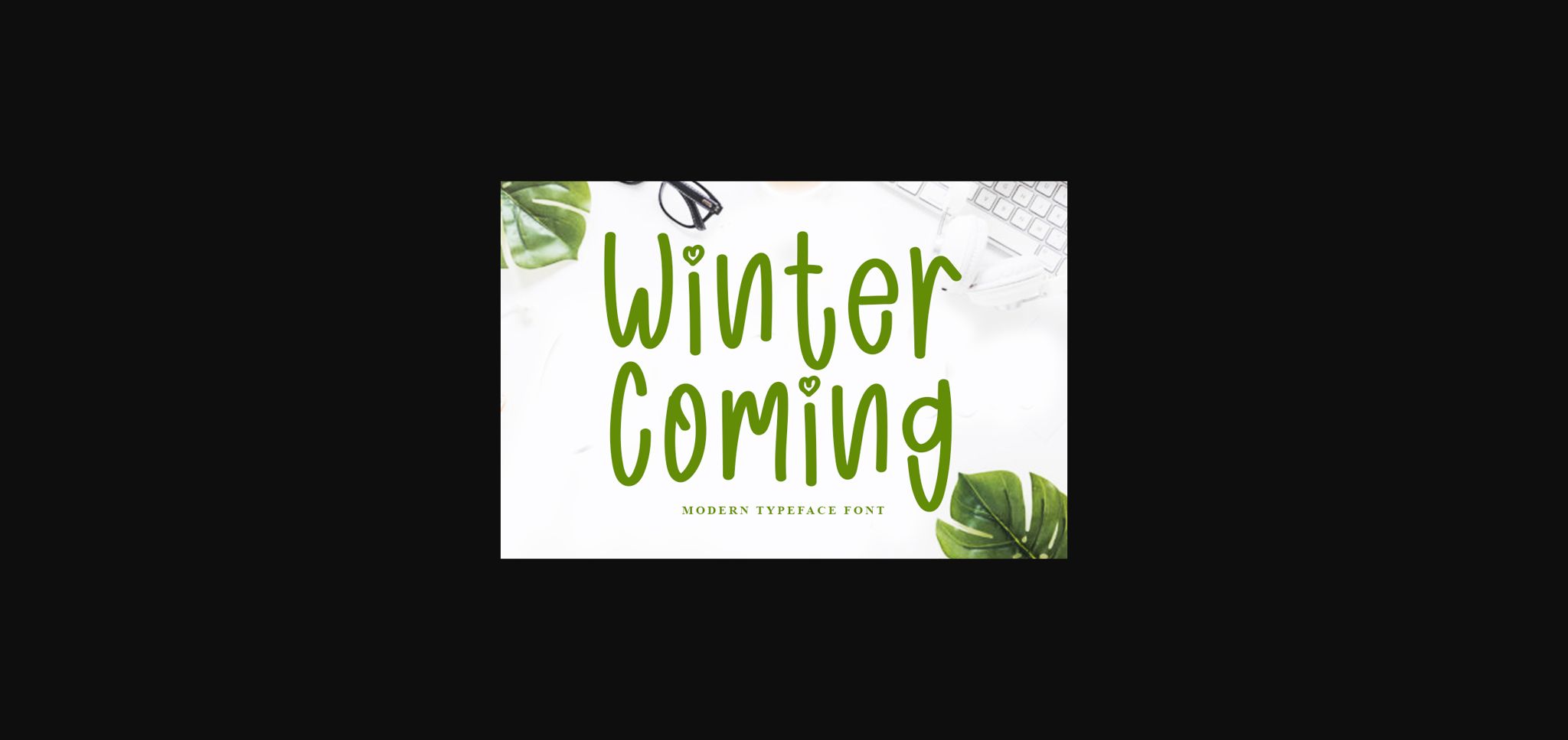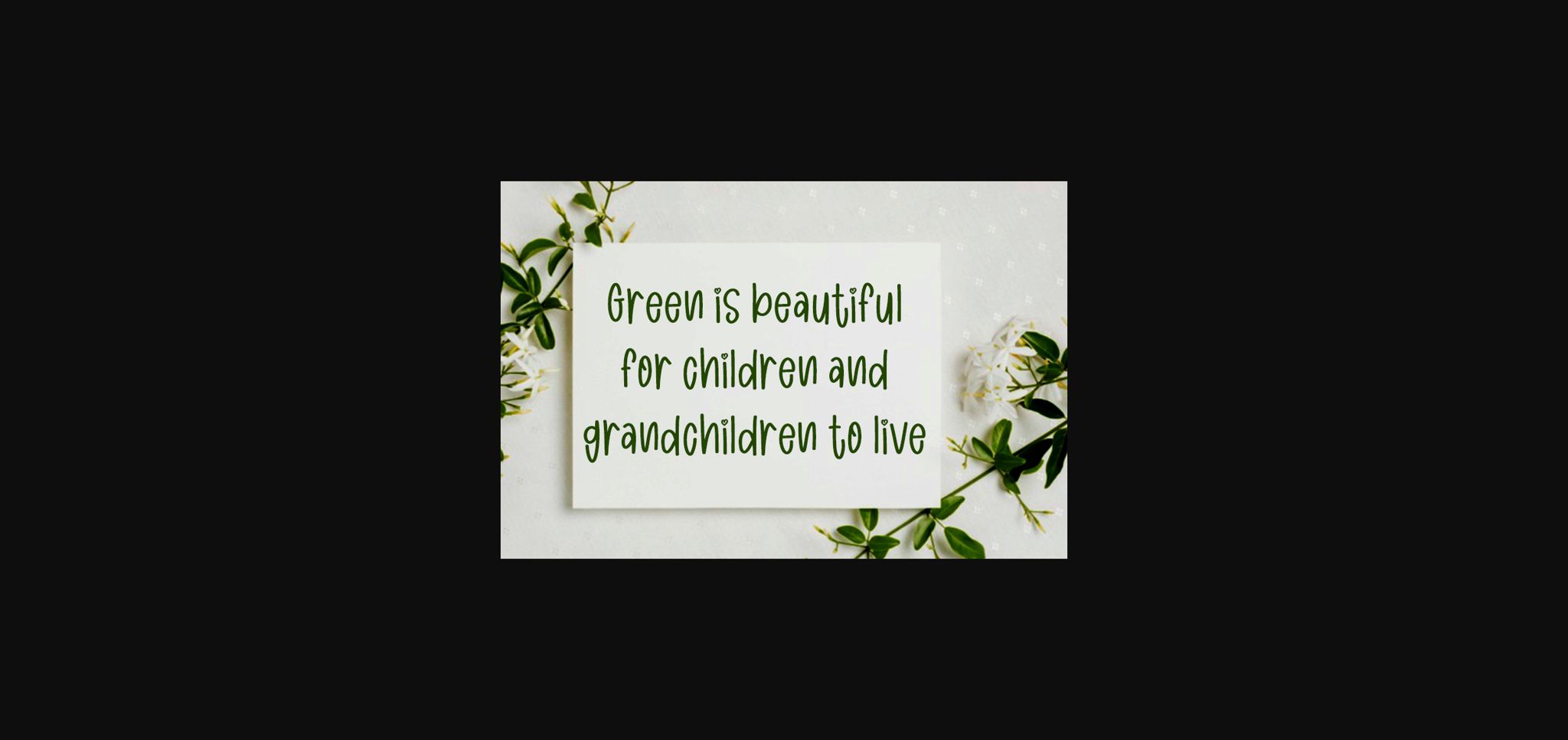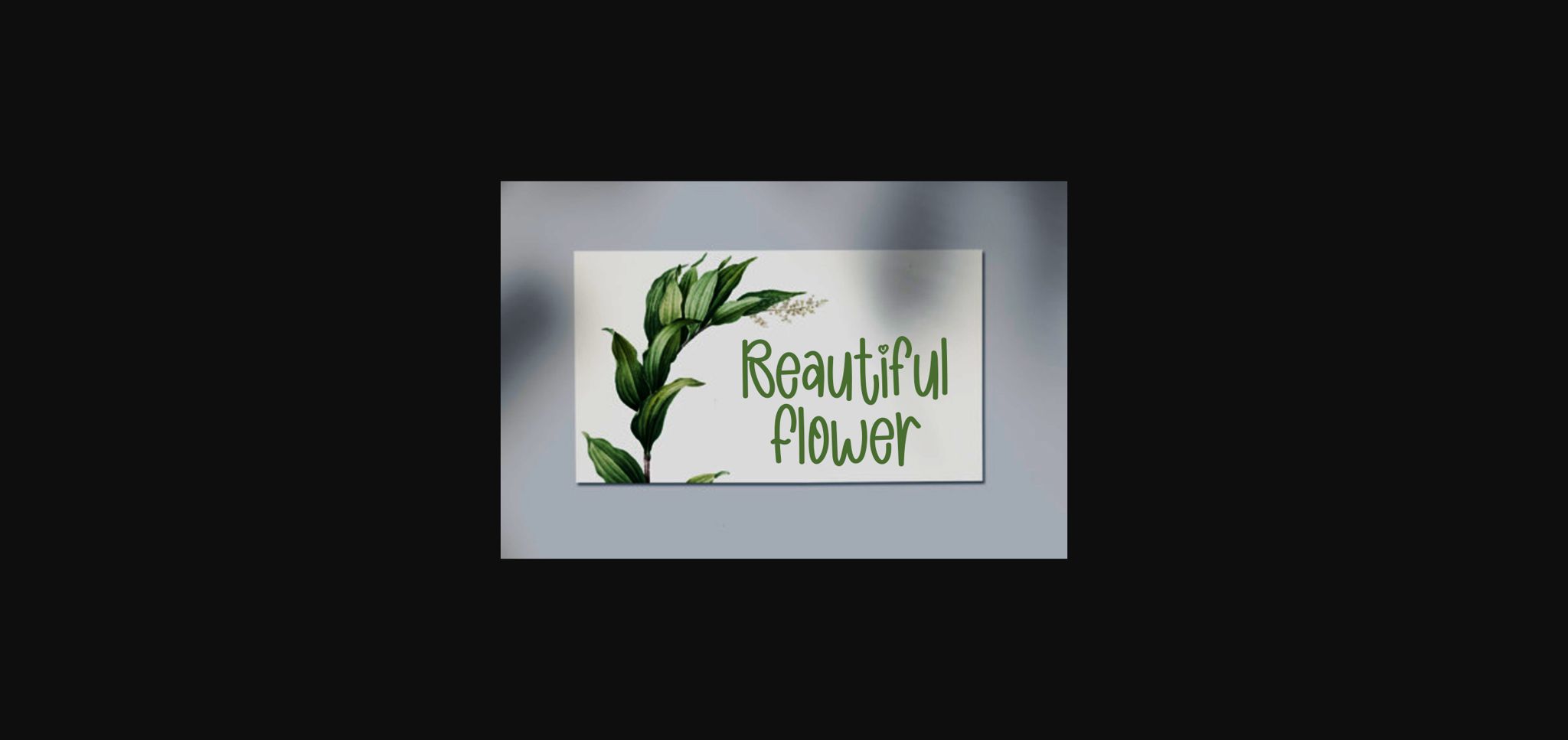
About Winter Coming Font
Winter Coming is a stunning Sans Serif font with an authentic handwritten style that is dotted with hearts which adds a personal touch and makes it is easy to all in love with this playful font! It looks beautiful on a variety of designs requiring a personalized style, such as wedding invitations, valentines day cards, thank you cards, weddings, greeting cards, logos, and so on.